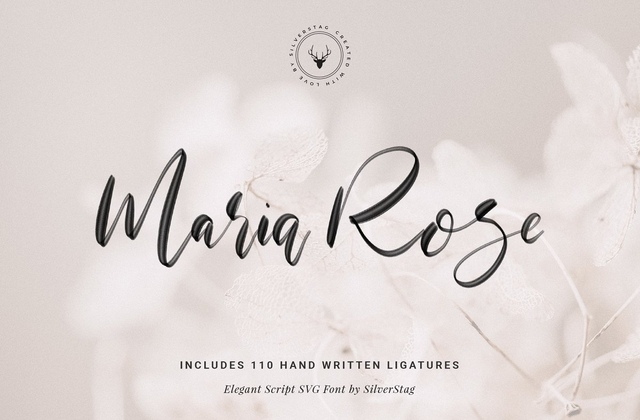
Maria Rose Elegant Script SVG Font
Maria Rose Elegant Script SVG Font is perfect for luxury wedding invitations, romantic greeting cards, high-end beauty branding, sophisticated floral businesses, elegant event planning, and premium feminine lifestyle brands. This exquisite typeface excels in bridal boutique identities, romantic restaurant menus, luxury spa communications, and any application where feminine elegance and romantic sophistication create enchanting connections with discerning clientele.
What makes Maria Rose Elegant Script SVG Font so exciting is its breathtaking ability to capture the delicate beauty of blooming roses through flowing calligraphic letterforms that seem handwritten with rose petals. The font features graceful flourishes, romantic curves, and elegant character shapes that embody the timeless romance of garden roses. Its sophisticated beauty makes it perfect for brands celebrating feminine elegance and romantic luxury.
Maria Rose Elegant Script SVG Font comes in a romantic family including Light, Regular, Medium, Bold, and Bloom weights. Each style features complete uppercase and lowercase character sets, floral symbols, elegant numerals, and romantic punctuation marks. The font family also includes decorative swashes, rose ligatures, and garden variations that allow designers to create truly enchanting communications with romantic appeal and professional elegance.
This breathtaking typeface transforms communications into beautiful expressions of feminine grace and romantic sophistication. Maria Rose Elegant Script SVG Font Free Download provides luxury brands and romantic businesses with essential typography that honors feminine beauty while serving contemporary elegance needs. Whether you're developing brands for wedding services, creating materials for luxury beauty companies, or designing romantic event invitations, this font delivers authentic romantic resonance with garden-fresh elegance.
The font's romantic character makes it particularly effective for wedding planners, luxury florists, beauty professionals, and feminine lifestyle brands. Its flowing readability ensures that Maria Rose Elegant Script SVG Font maintains clarity while preserving its distinctive romantic personality. The font's ability to evoke love and feminine sophistication makes it an invaluable rose garden for any project seeking to celebrate romantic beauty and connect with audiences through the timeless appeal of elegant femininity, garden romance, and the eternal charm of handwritten love letters.